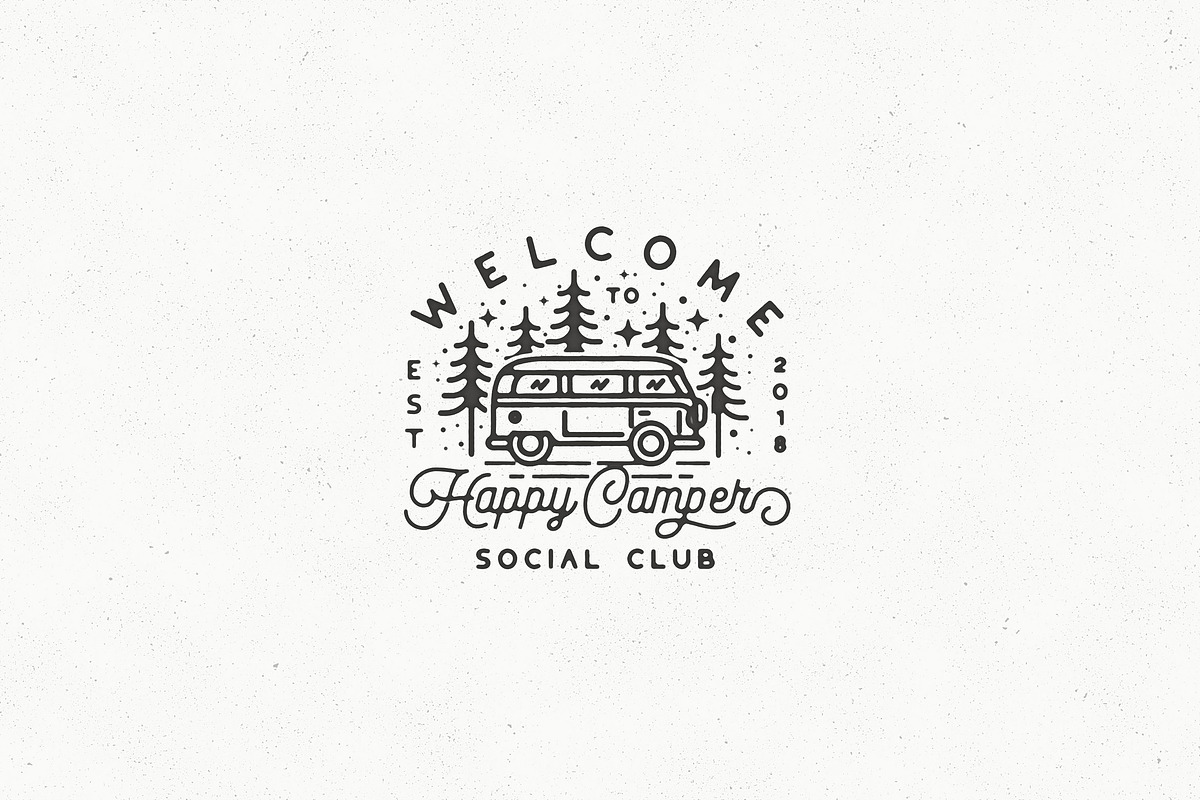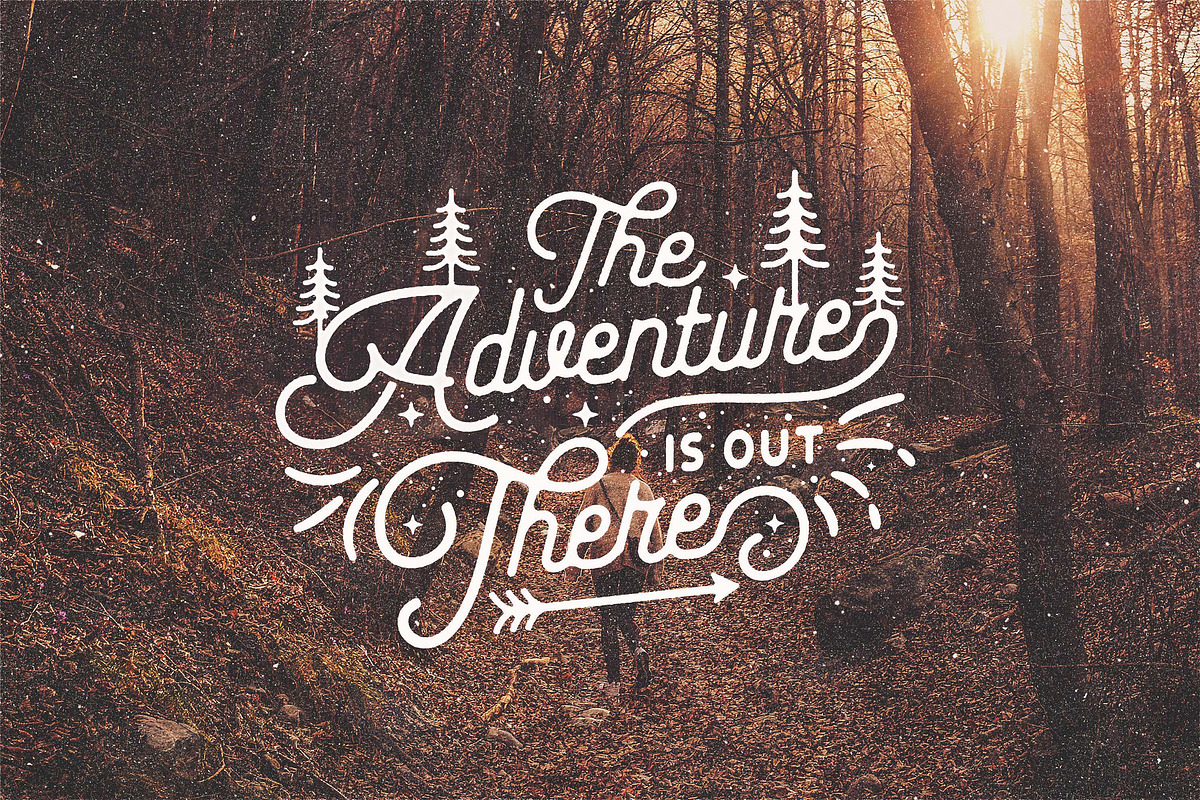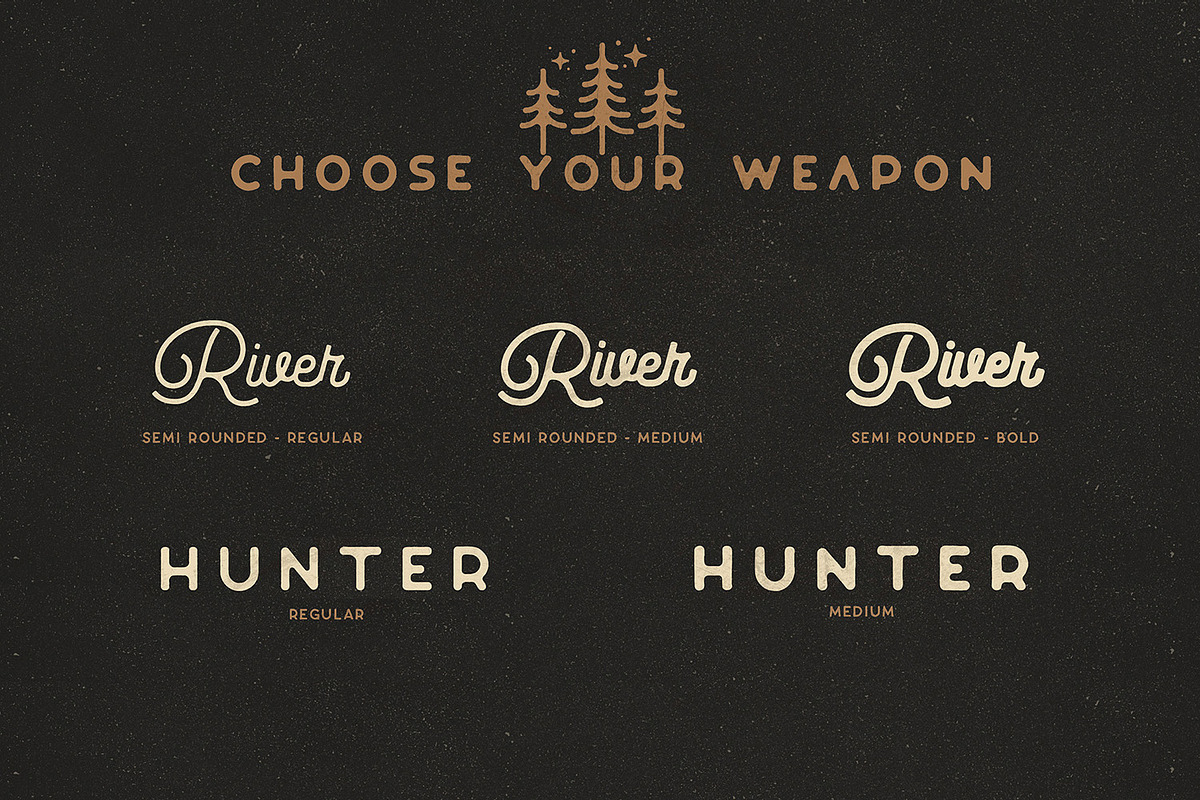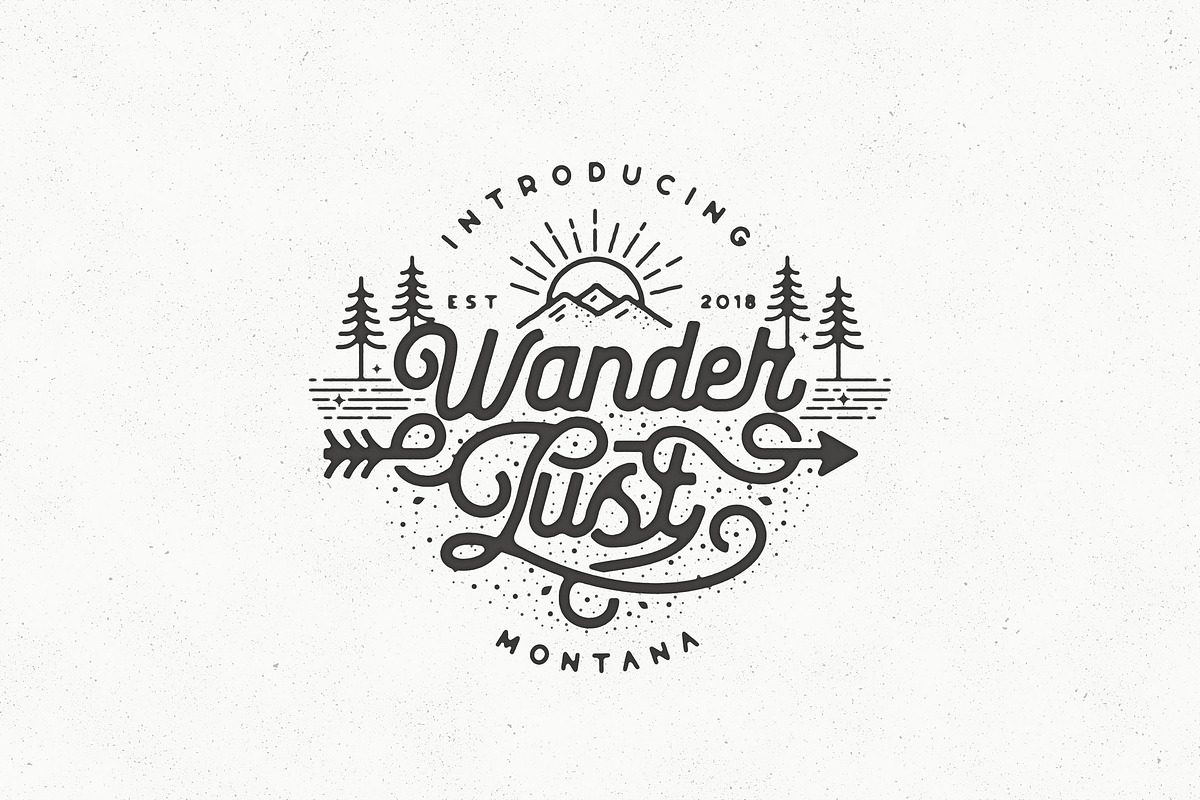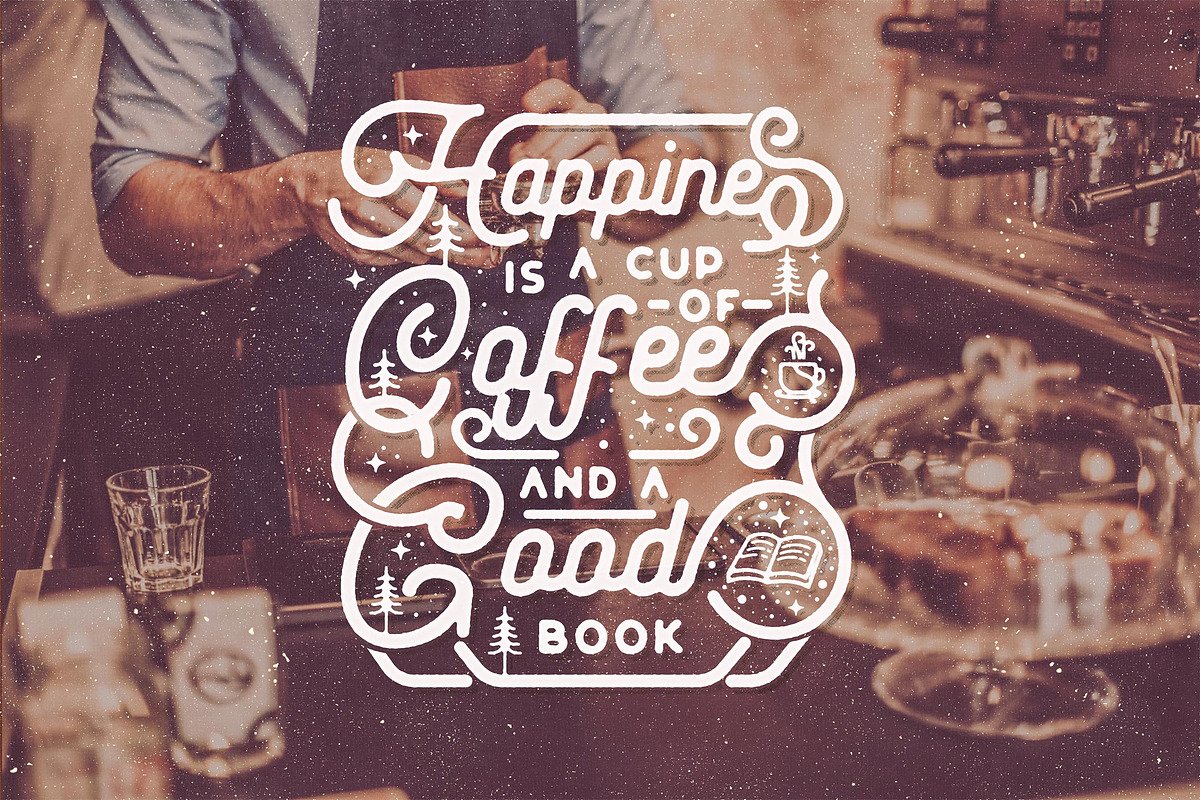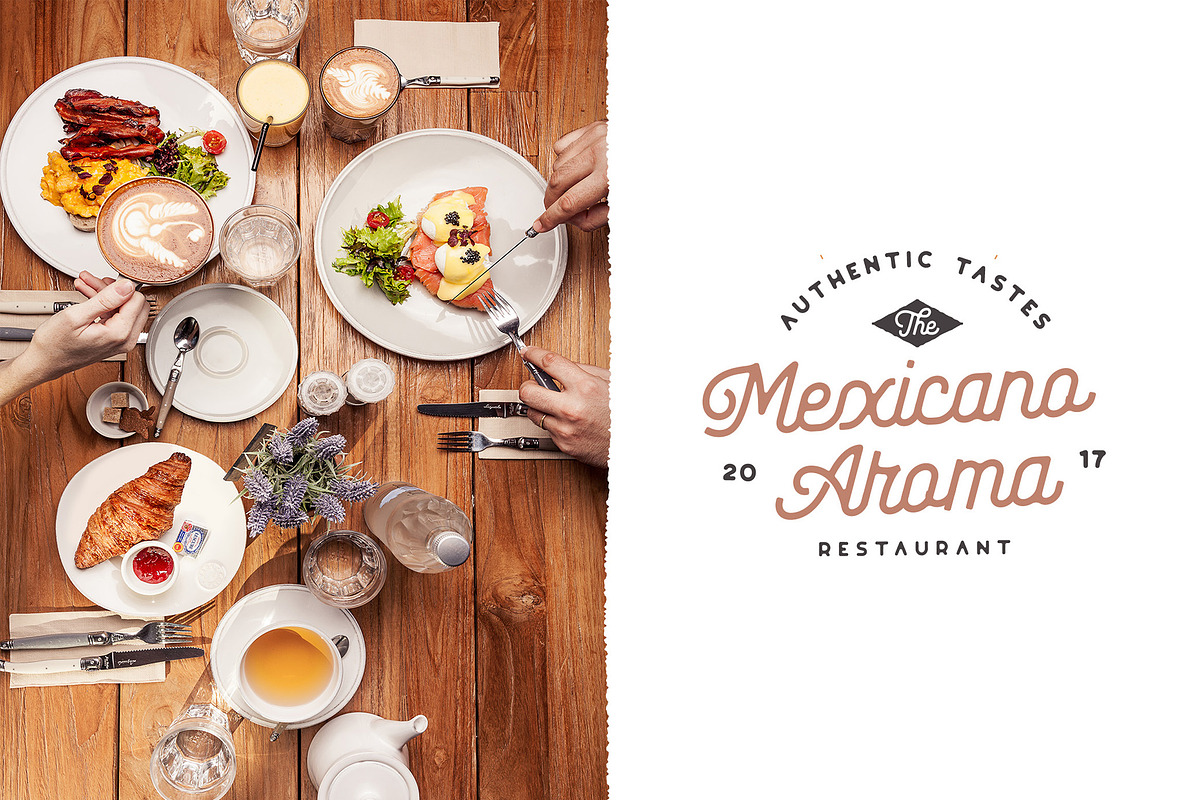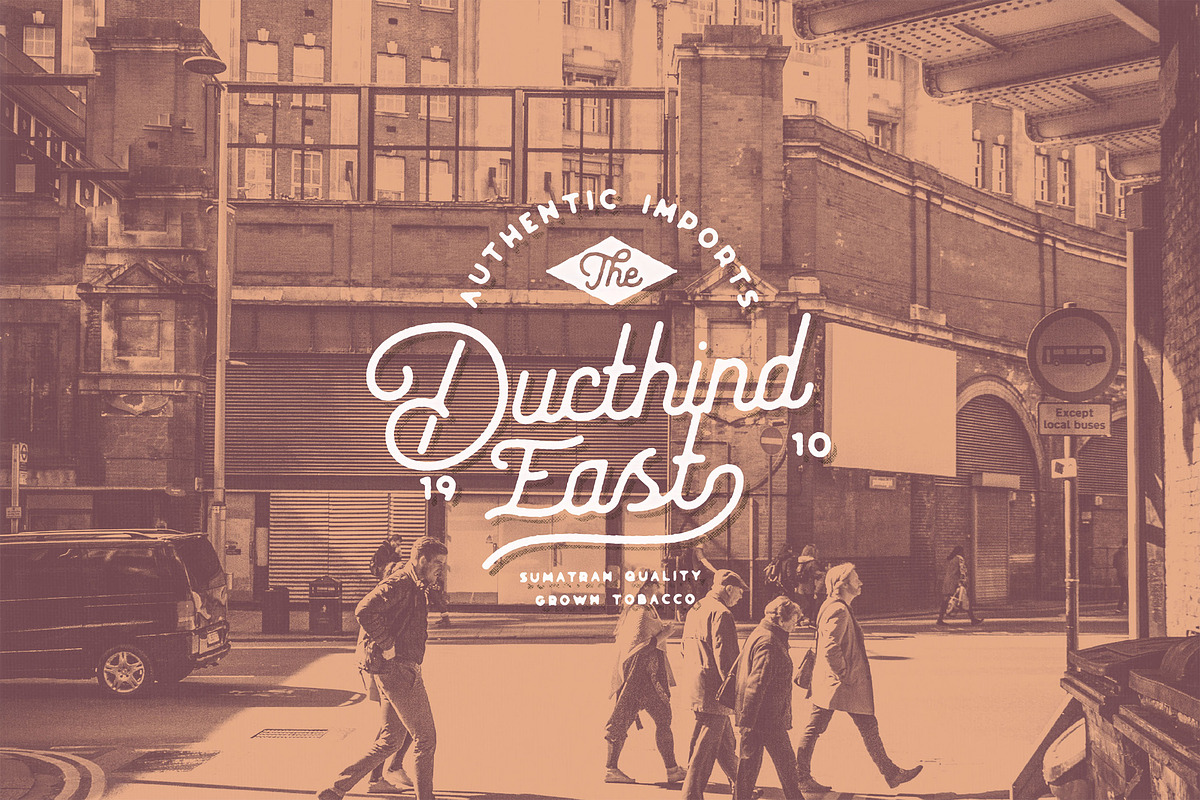
Riverfall SemiRounded Typeface Ver.2
The Riverfall Semi Rounded is vintage Script and sans serif font with 5 with 2 different style ‘script and sans. Also with many beautiful alternates, Swashes. Perfect fair of sans and script font for retro vintage styles. Made carefully to create perfect suitable for each of your projects, great for Logotype, Branding Design, Logo Design, Digital Lettering Arts, T-Shirt/Apparel, Poster, Magazine, Signs, Advertising Design, and any vintage design needs.
5 Weight font and Styles
Script Semi Rounded Regular, Medium, Bold
Uppercase,numeral,punctuation & Symbol
Stylistic Alternates, and swashes
Riverfall SemiRounded Typeface Ver.2 by Kaligra.co fits naturally into Branding, posters, packaging, typography.